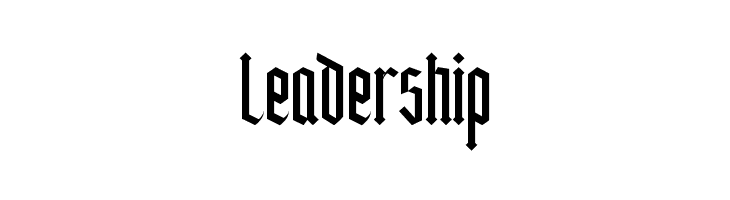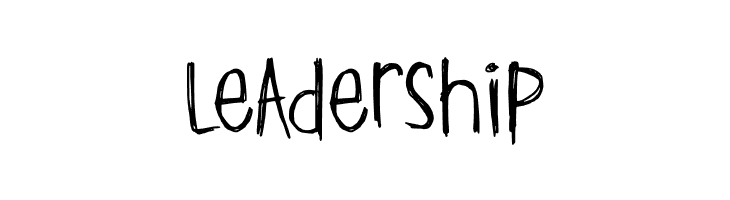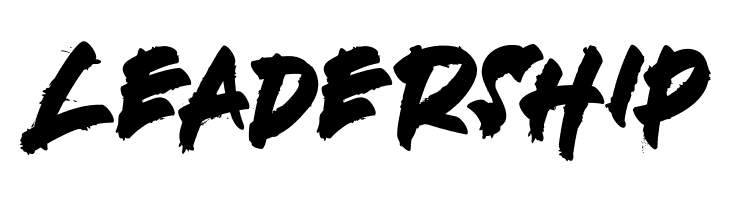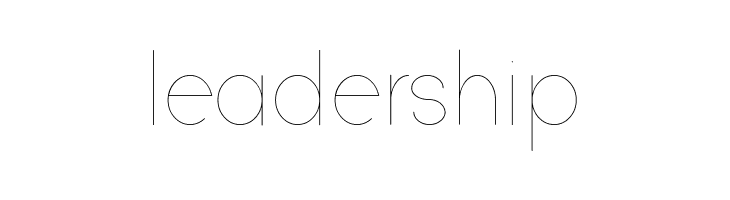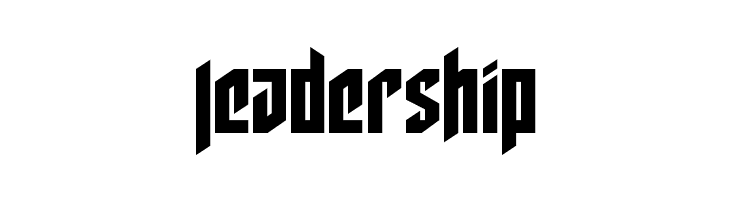
A bold, hand-drawn font with irregular strokes and a dynamic, expressive style.
A sleek, modern font with thin, elongated letterforms and minimal contrast.
A bold, brush-style font with dynamic, hand-painted strokes.
A bold, impactful font with strong, thick strokes and slight serifs.
A bold, distressed font with a grunge texture and rugged appearance.
A bold, gothic Blackletter font with intricate, angular designs.
A hand-drawn, sketch-like font with tall, narrow characters and an artistic feel.
A bold, angular, gothic-inspired font with a dramatic and intense style.
A bold, angular Gothic-inspired font with sharp edges and thick strokes.
A bold, 3D geometric font with sharp angles and shadow effects.
A bold, 3D font with angular, geometric shapes and a shadow effect.
A bold, 3D italic font with sharp angles and a futuristic style.
A bold, 3D italic font with angular, geometric characters and a futuristic style.
A bold, angular font with a gothic, blackletter style.
A bold, angular font with a modern, geometric design.
A bold, italicized font with sharp, angular edges and a futuristic look.
A bold, angular, and italicized font with a dynamic, futuristic style.
A bold, angular, and condensed font with a modern, edgy style.
A bold, angular, condensed italic font with a futuristic style.
A bold, condensed, and italic font with sharp angles and high contrast.
A bold, angular font with a geometric and aggressive style.
A bold, angular font with a modern, industrial aesthetic.
A bold, angular, and italic font with a futuristic and aggressive style.
A bold, angular, and italicized font with an aggressive modern style.
A bold, geometric font with a halftone effect, offering a modern and edgy look.
A bold, geometric font with a halftone effect, perfect for modern designs.
A bold, italicized font with a halftone effect, featuring sharp, angular characters for a modern look.
A bold, angular, italic font with a halftone effect for a futuristic look.
A bold, angular, and italicized font with a futuristic and aggressive style.
A bold, angular font with a futuristic and edgy design.
A bold, angular font with a futuristic and aggressive style.